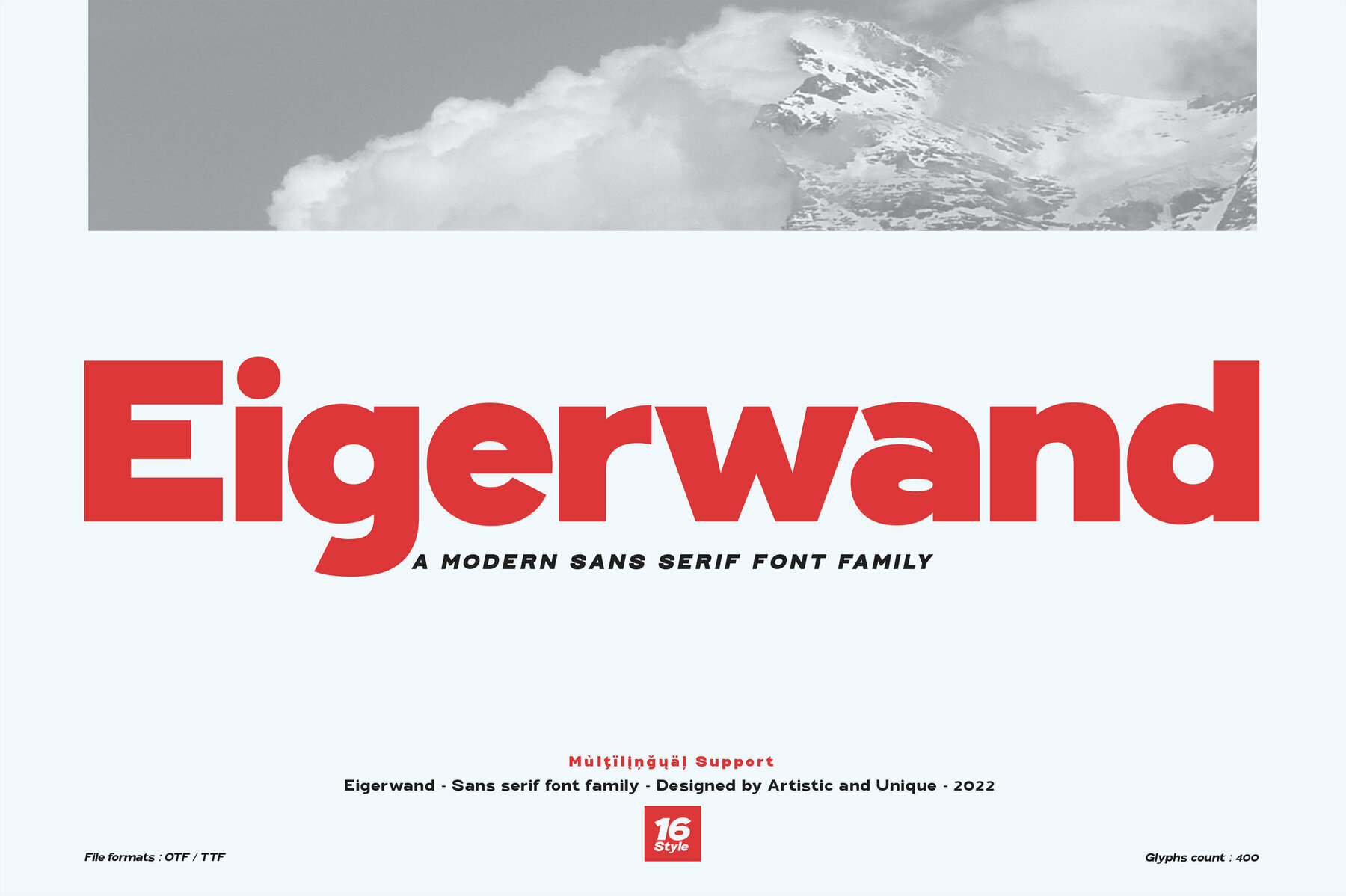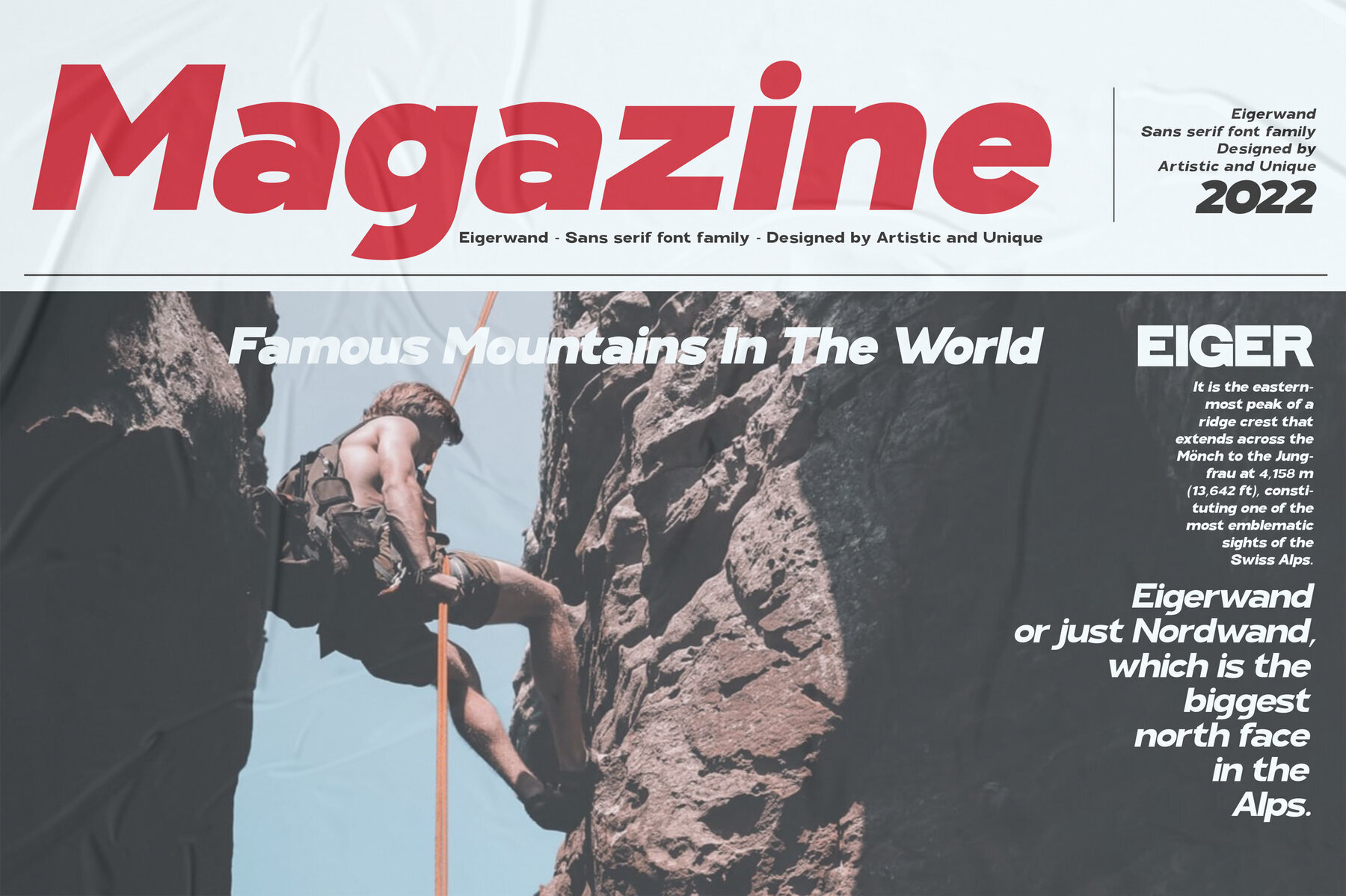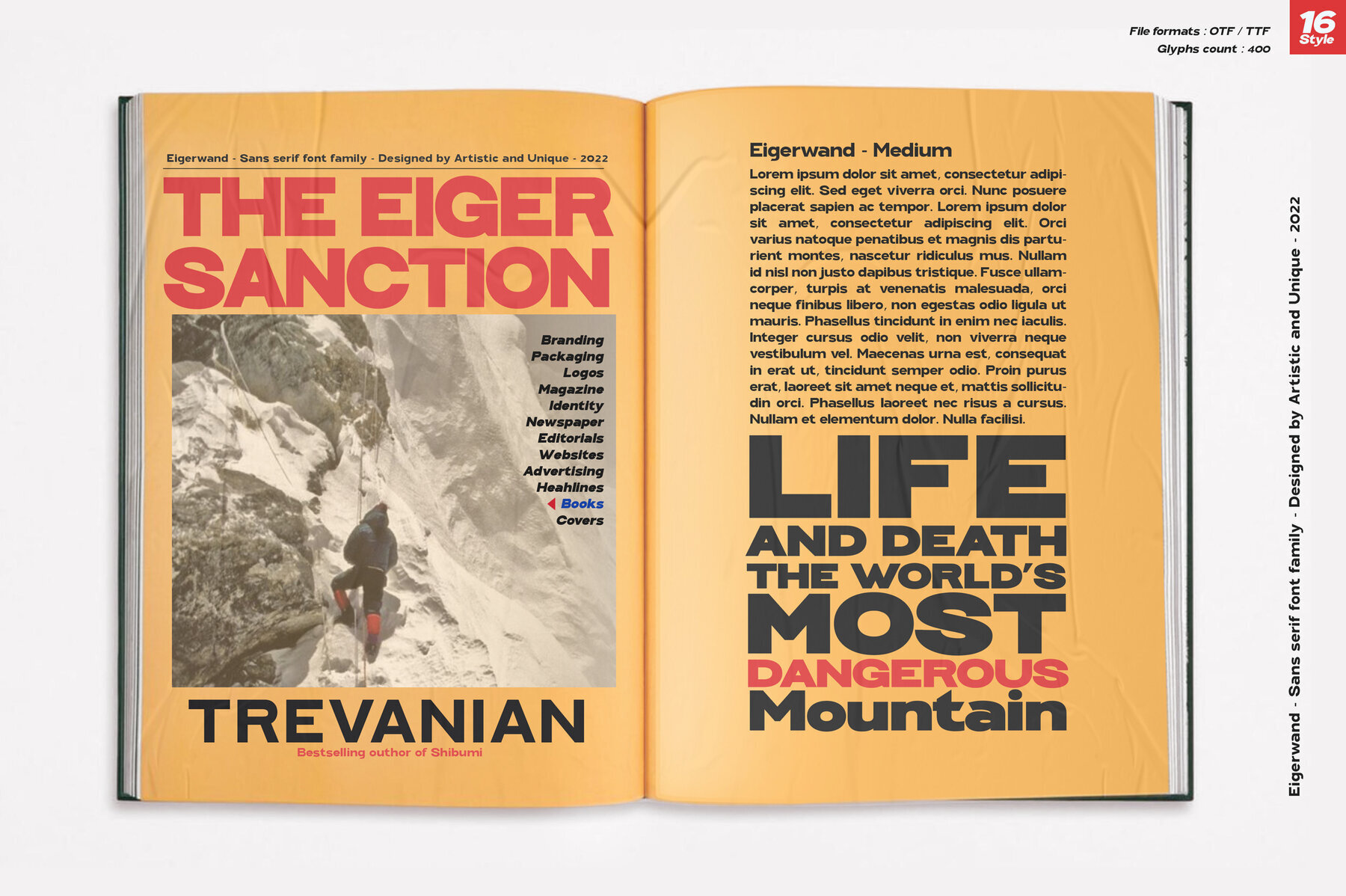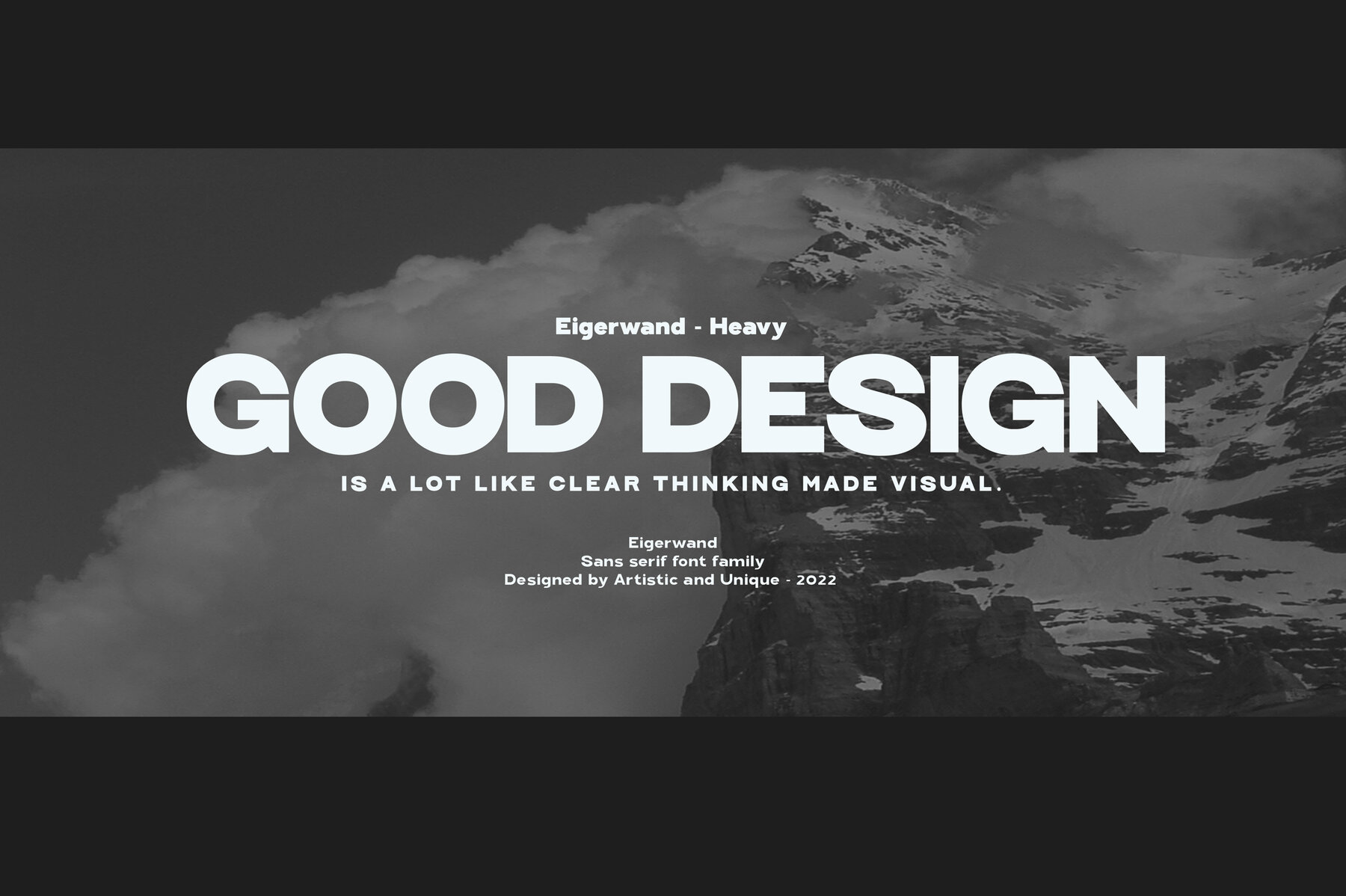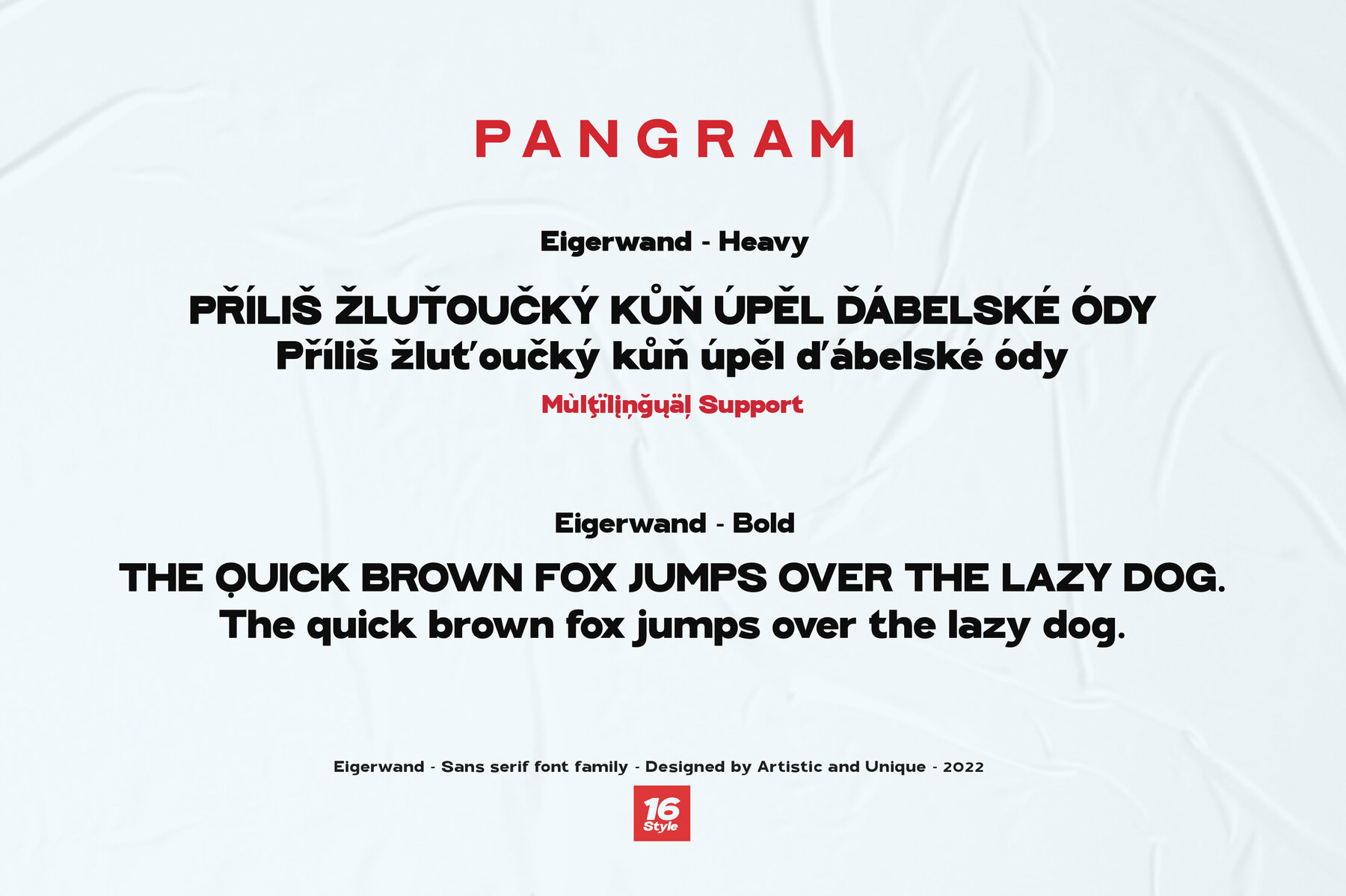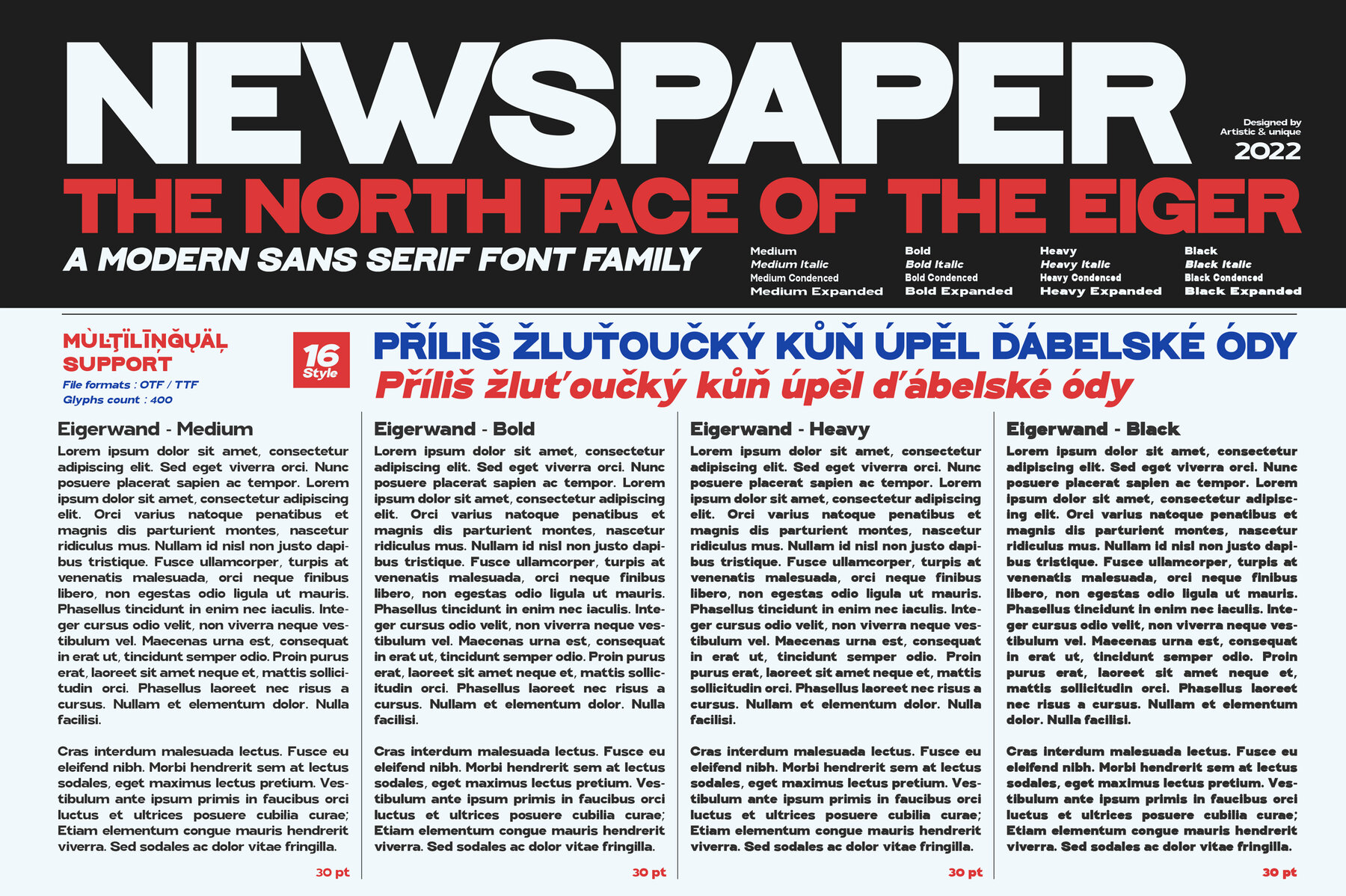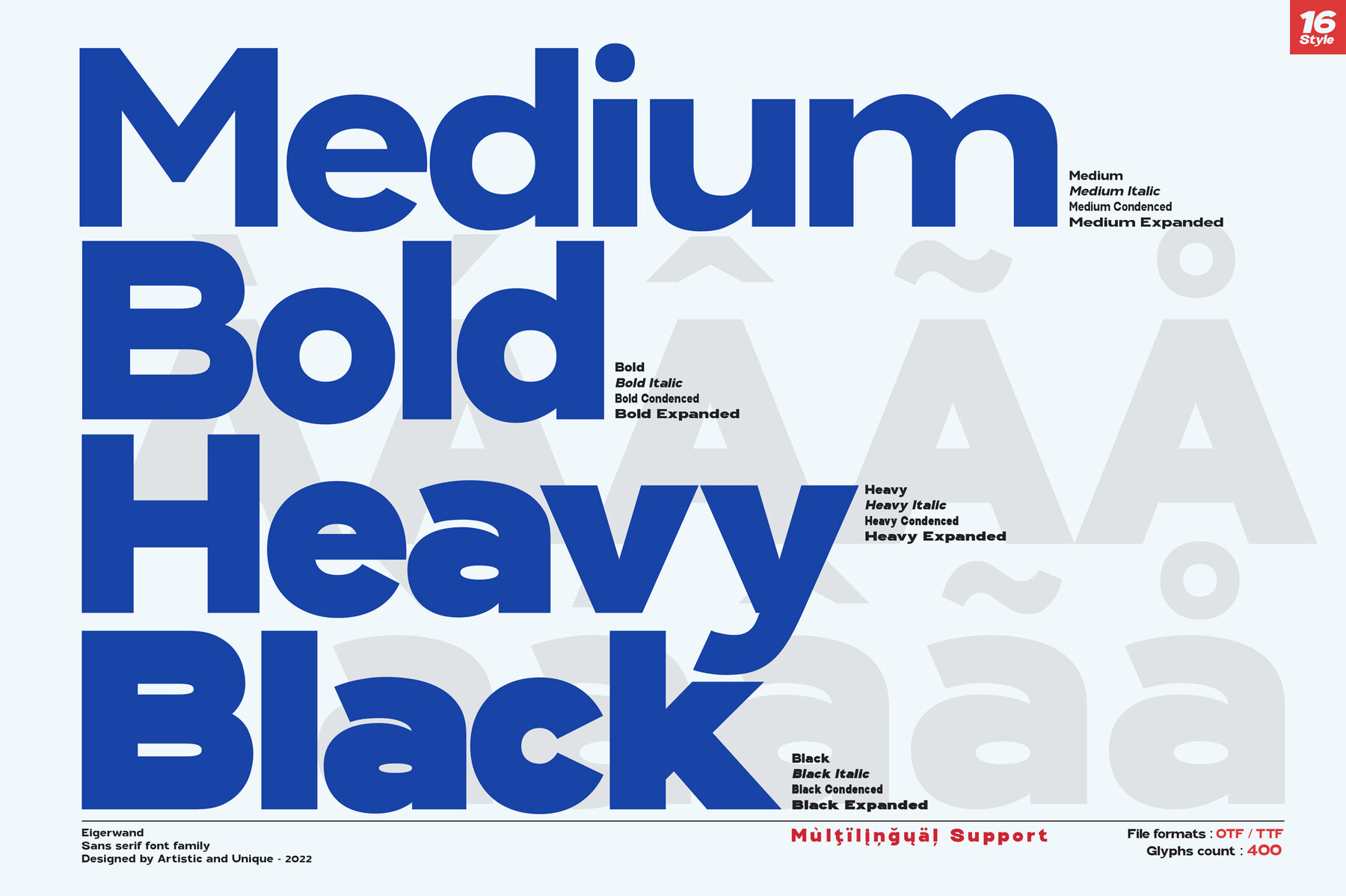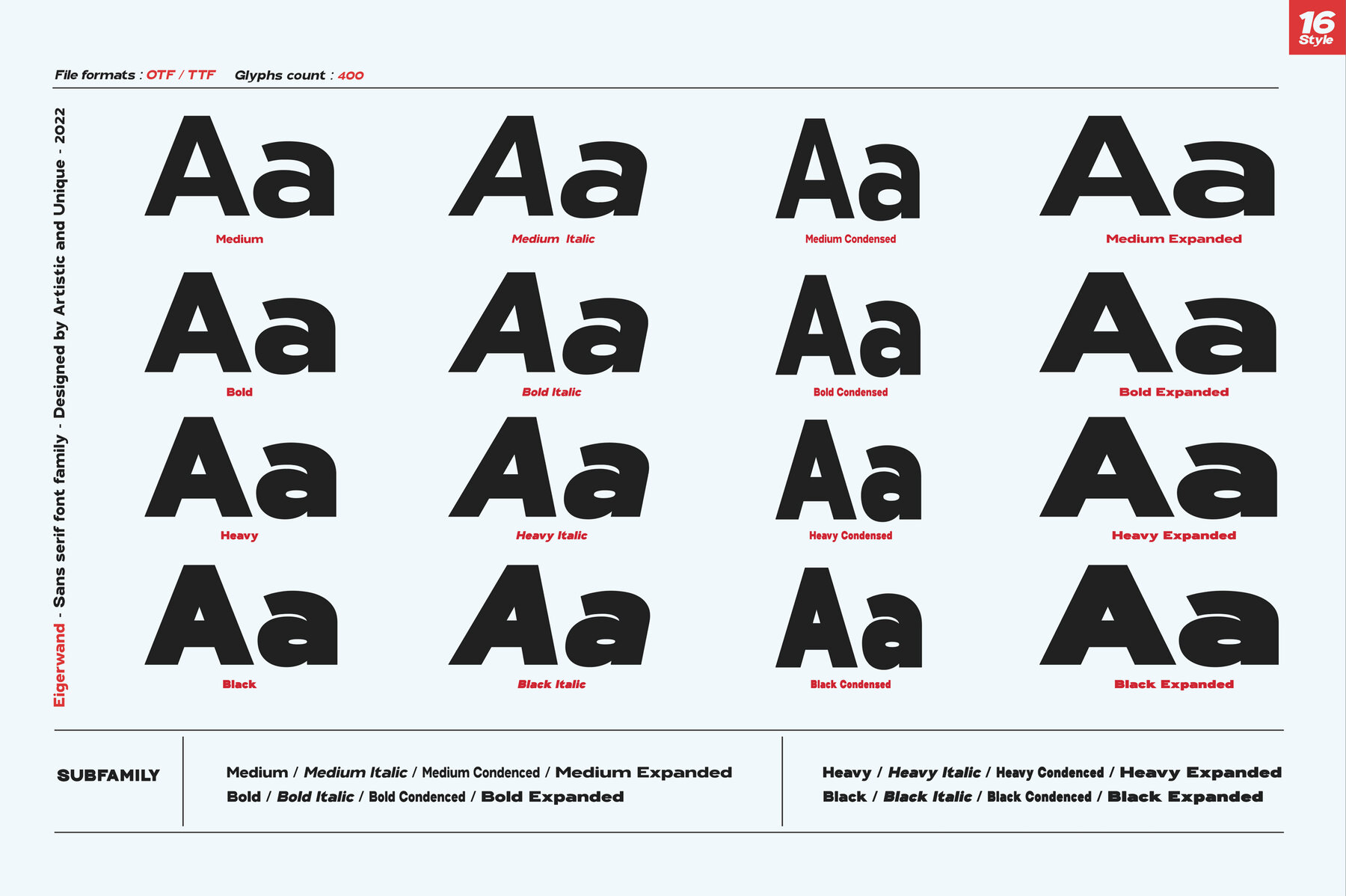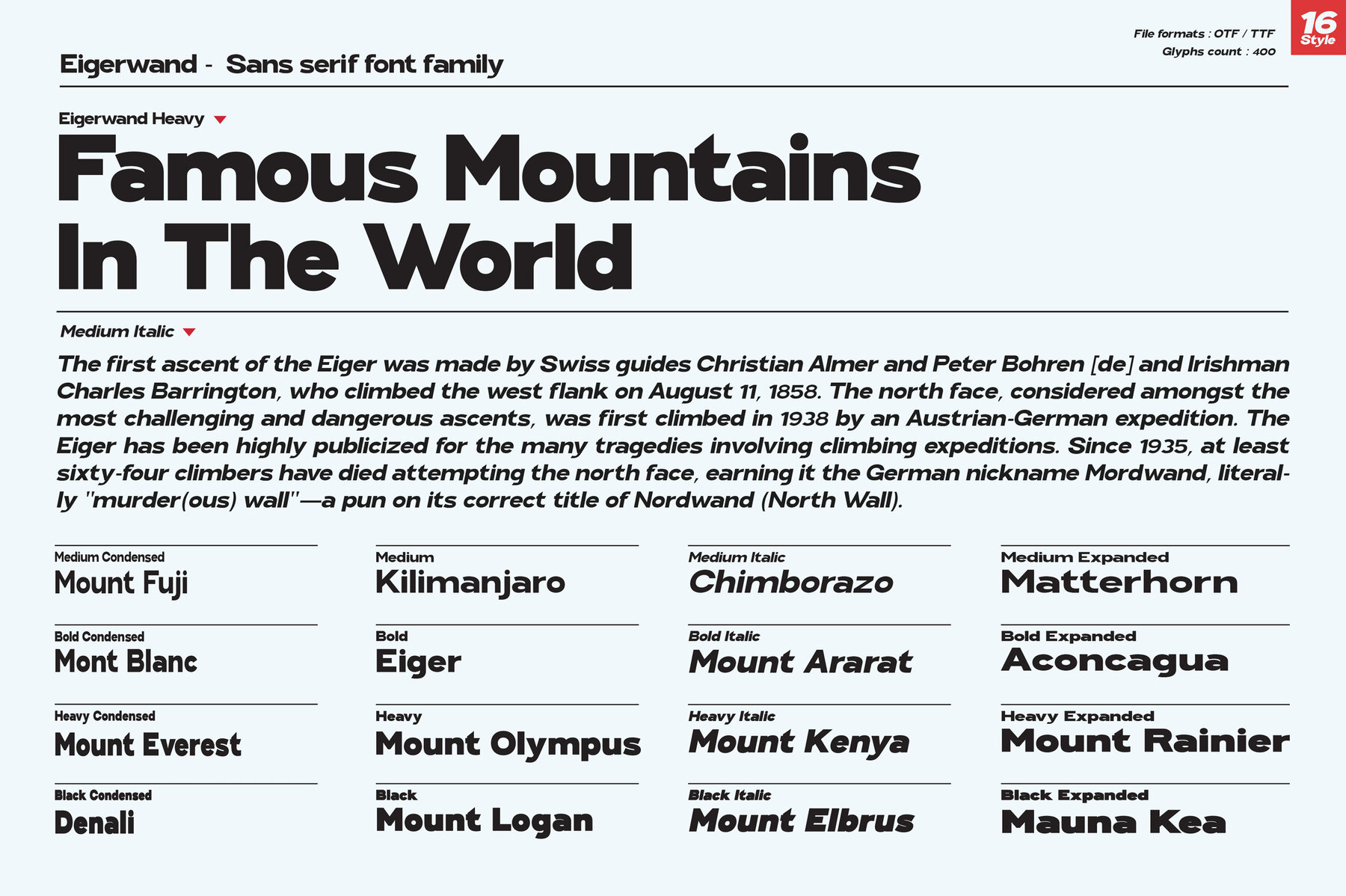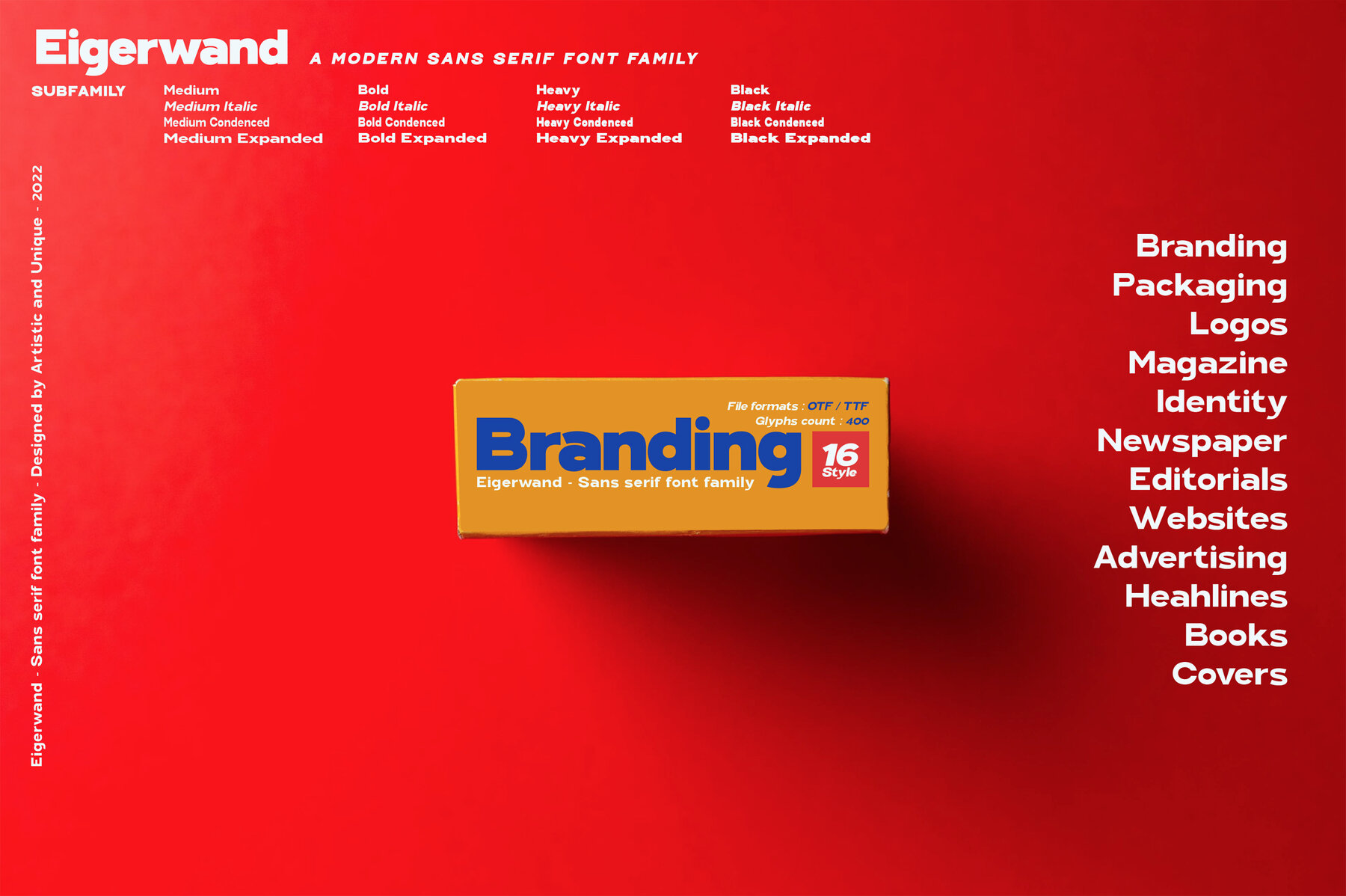
Eigerwand Font
Discover the Eigerwand sans serif font family, a versatile choice for graphic designers and developers alike. This font includes a broad character set, featuring typographic alternatives and small caps, along with multilingual support. Ideal for impactful posters, eye-catching titles, and professional magazine layouts, this font is perfect for web design, branding, advertising, and more. Its various weights ensure that your message will not go unnoticed. Ease your creative process with Eigerwand's adaptability across multiple areas, helping you craft distinctive designs with ease.Eigerwand Sans Serif Font Family